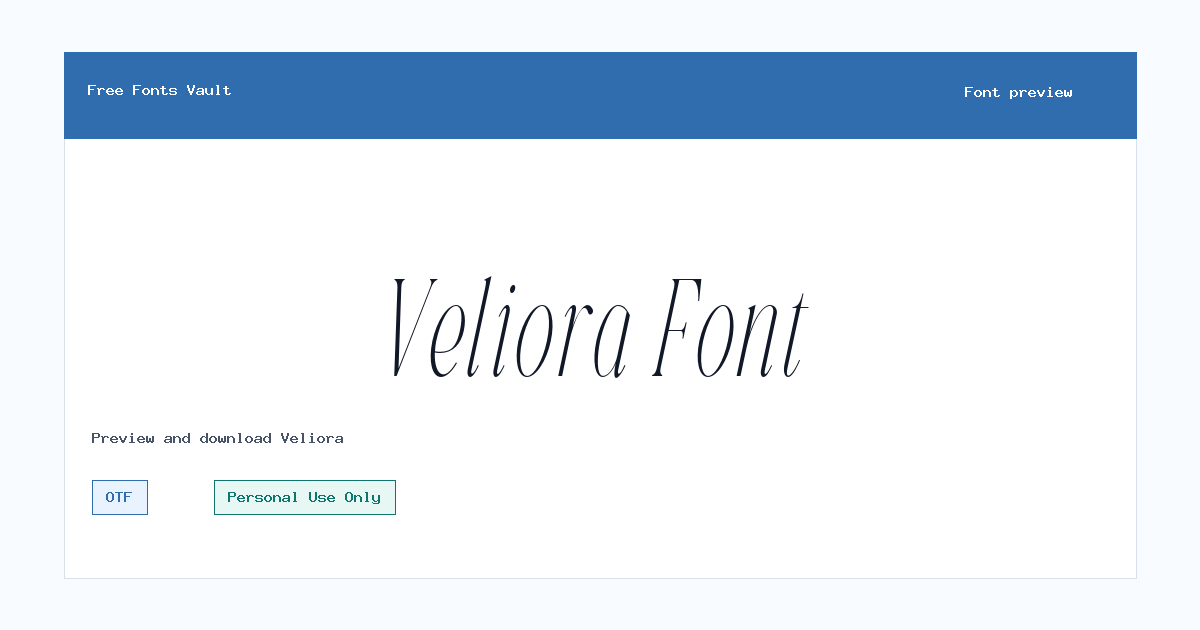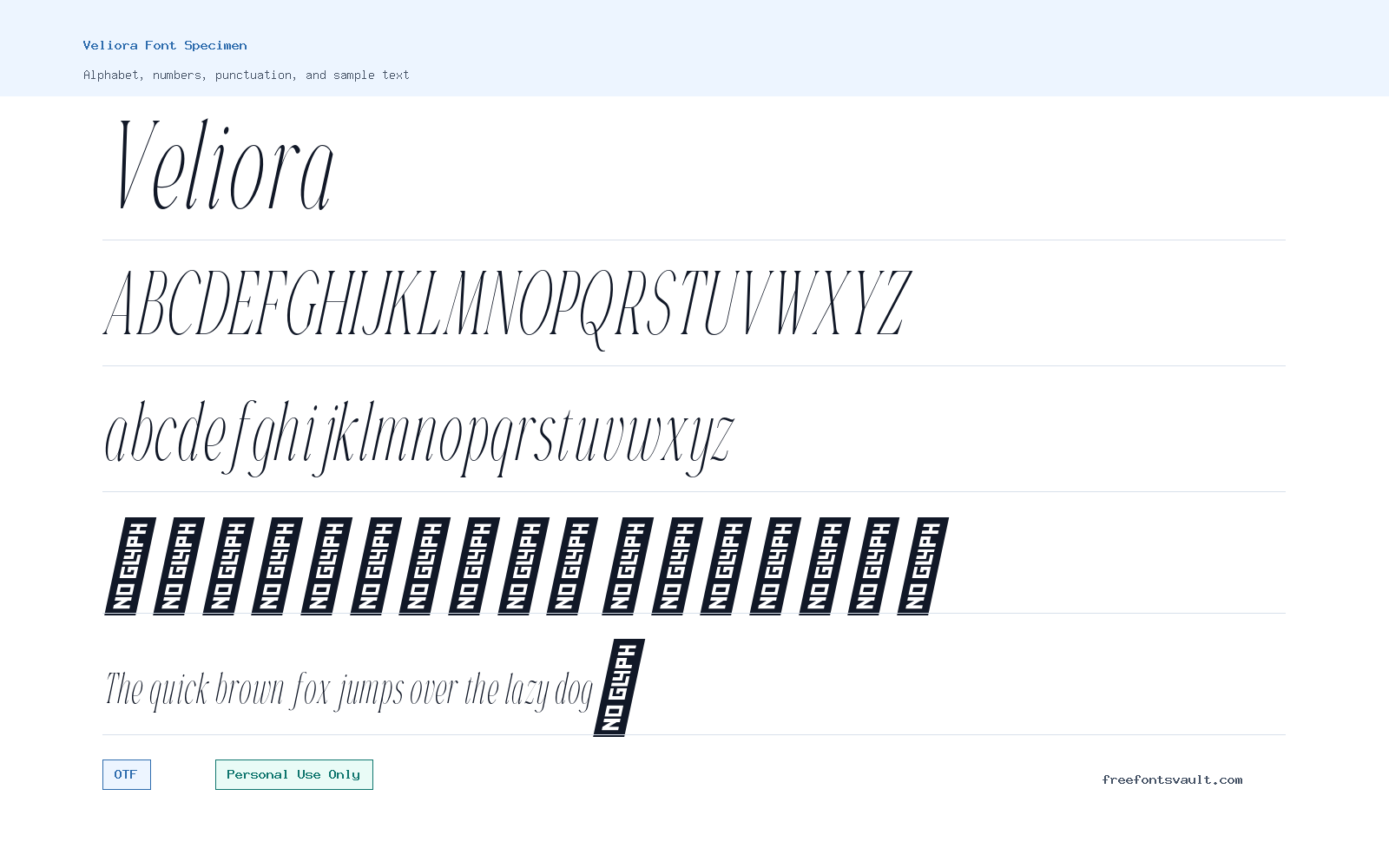
Veliora
Veliora is an italic serif font with a refined, slanted look that works best when you want text to feel elegant without becoming hard to read.
About Veliora Font
Veliora is offered as an OTF font file in an italic style with regular weight. Its serif structure gives it a classic base, while the italic angle adds movement and a more expressive tone. That makes it better suited to short display text than long paragraphs. Try it for titles, nameplates, quote graphics, invitation headings, boutique-style labels, social posts, or decorative text where a graceful serif can carry the mood.
- Italic serif style with a regular 400 weight
- Best for short headings, quotes, invitations, and decorative display text
- Wedding invitations and event headings
- Quote graphics and social media designs
- Elegant titles, name cards, and boutique-style labels
- Short decorative text where an italic serif is easier to appreciate
What type of font is Veliora?
Veliora is an italic serif font. It has a regular 400 weight and is best suited to short display text rather than long reading passages.
Where does Veliora work best?
Use Veliora for elegant headings, invitations, quote images, name cards, labels, and other short text designs where an italic serif style fits the tone.
Should I use Veliora for body text?
It is better for display use. For long paragraphs or small captions, pair it with a simpler font to keep the layout clear and easy to read.